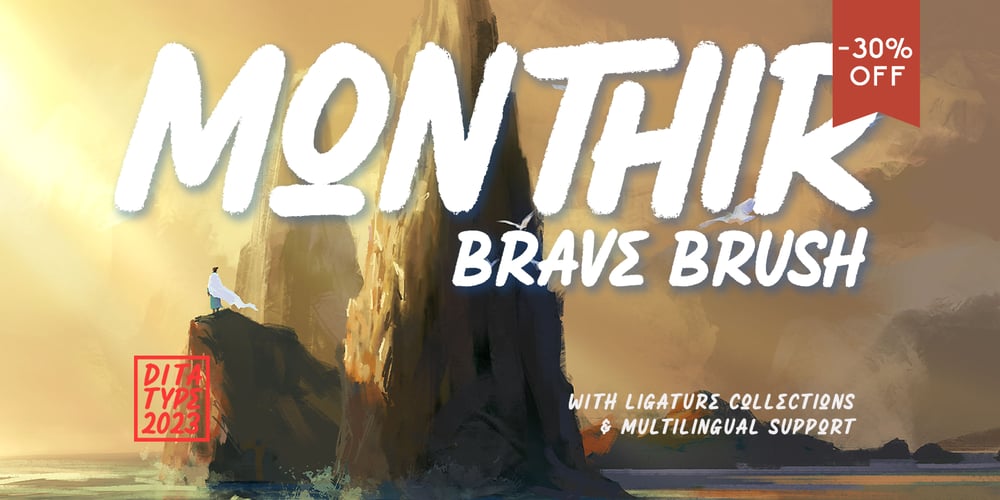
Monthir Font Family was designed by Donis Miftahudin and published by Ditatype. Monthir contains 1 styles and family package options. It may be a hard challenge to find an attractive, prominent font in a unique way amid the abundant font options available. Due to the significant reason to find the right font to deliver appropriate messages and emotions, we would like to introduce you to the Monthir, the perfect choice to express any of your project designs.Monthir is a capitalized brush font in brush details to produce authentic looking handwriting displays. The font’s bold, firm displays which are the advantages of such a font can create more interesting, prominent designs. Besides, people can feel closer to the brands or designs created through its personal, natural nuances. The letters’ proportions are relatively consistent, yet its dramatic, bold styles are suitably applied for bigger text sizes rather than the text body.Features: Multilingual Supports PUA Encoded Numerals and Punctuations Monthir fits best for various design projects, such as brandings, posters, banners, headings, magazine covers, quotes, invitations, name cards, printed products, merchandise, social media, etc. Find out more ways to use this font by taking a look at the font preview.Thanks for purchasing our fonts. Hopefully, you have a great time using our font. Feel free to contact us anytime for further information or when you have trouble with the font. Thanks a lot and happy designing.